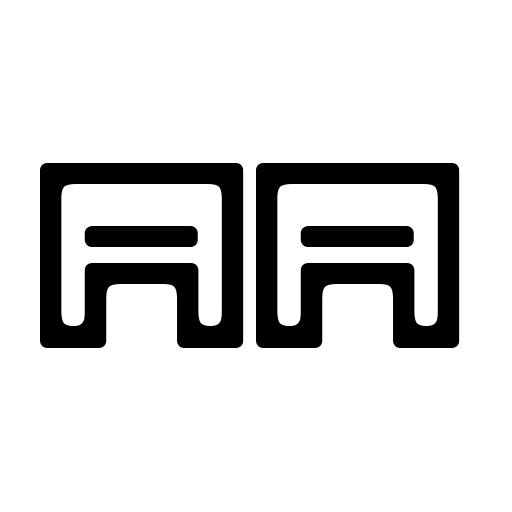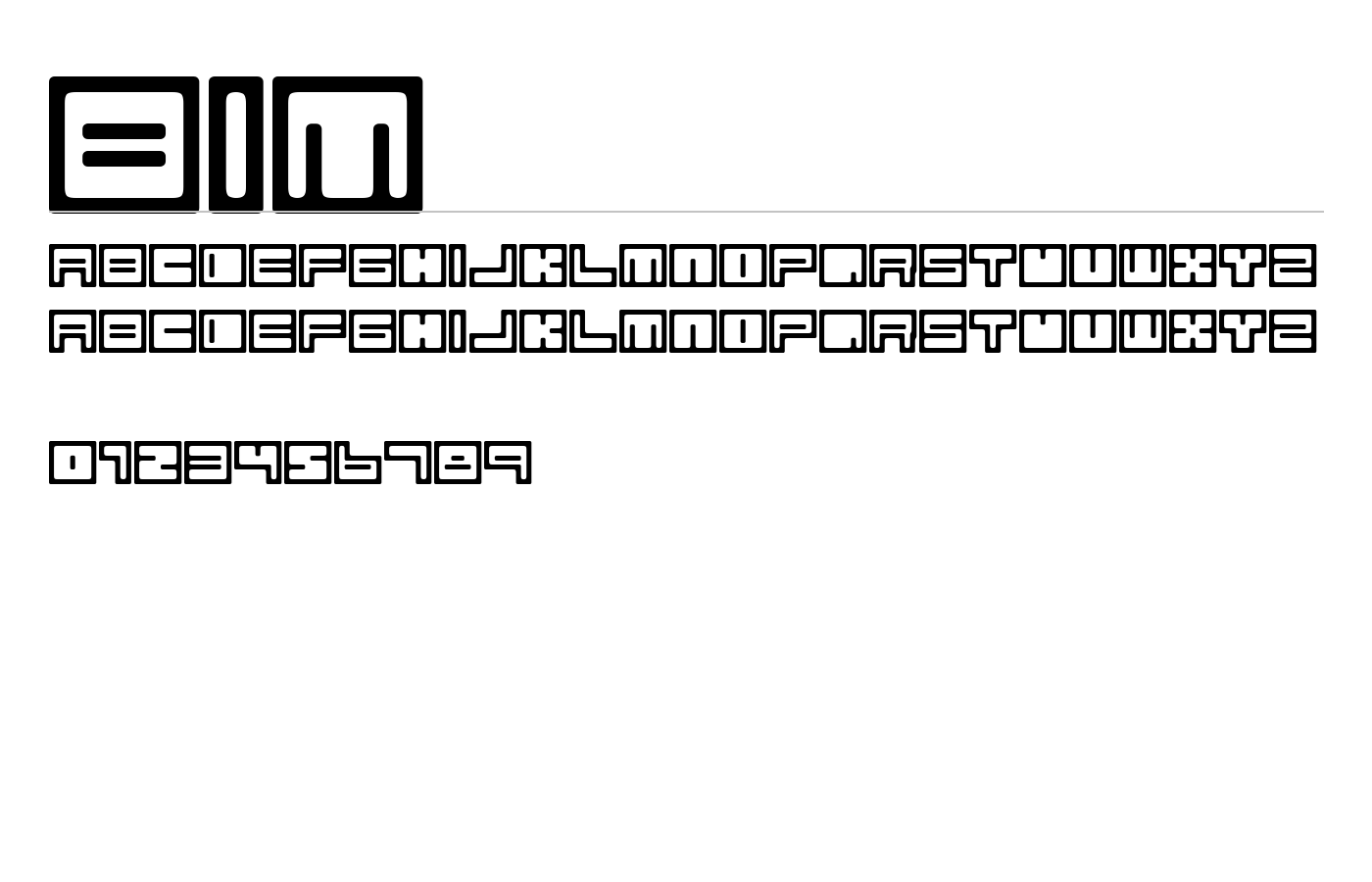
Bim Font is a bold, geometric sans serif with a strong futuristic and tech-inspired vibe. Its blocky, square letterforms with consistent stroke weight and rounded corners create a distinctive, modern look that works well for logos, headlines, and digital-themed designs. This font’s compact, modular style makes it especially suitable for branding and signage where a contemporary, eye-catching appearance is desired.
Bim Font
About Bim Font
| Font family | Bim Font |
| Designer | Carlos Matteoli |